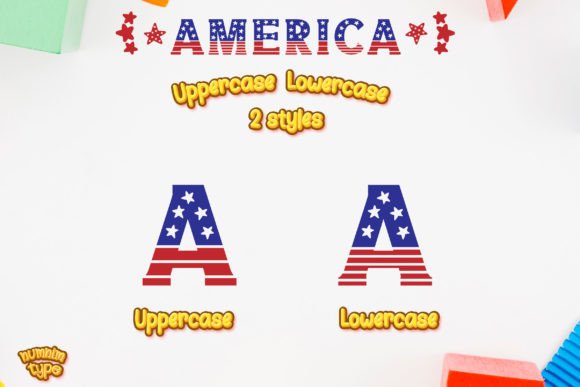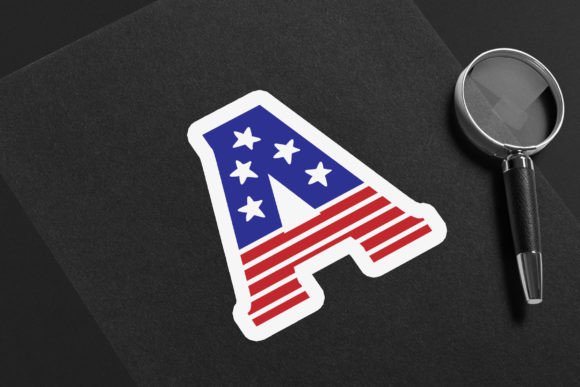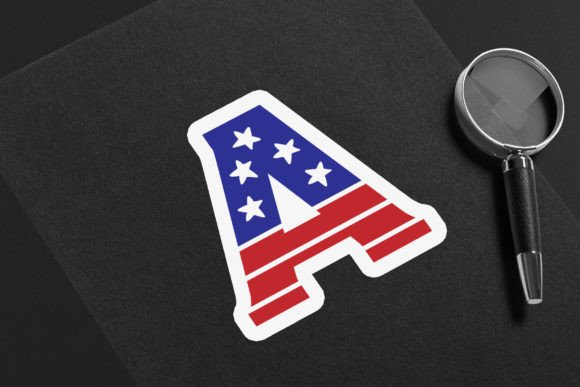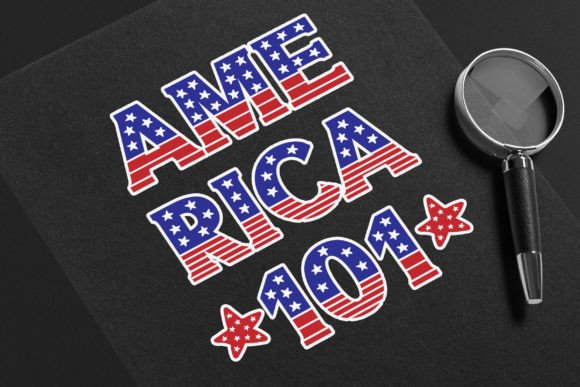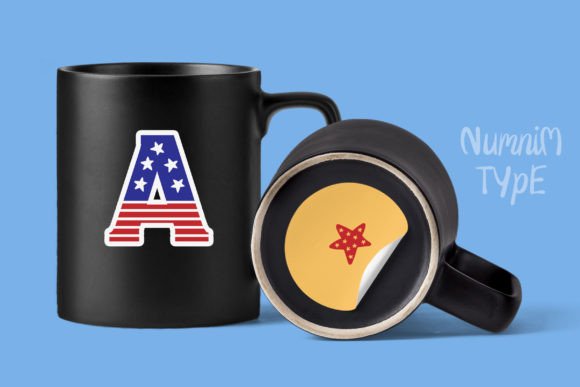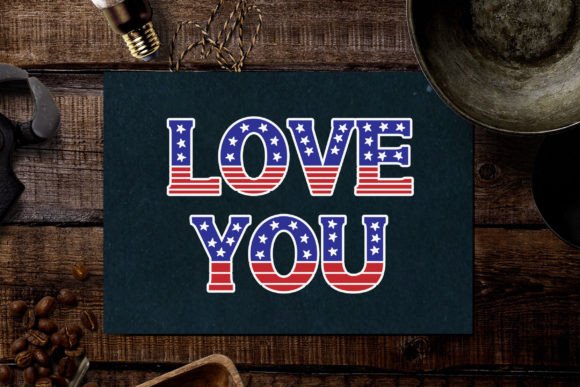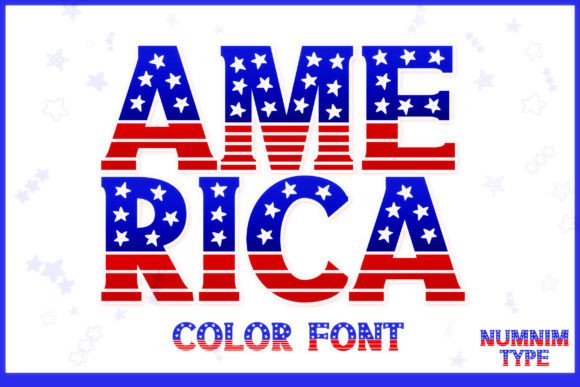
The Ultimate Guide to America Font: A Decorative Color Font for Creatives
I’ll never forget the time I was working on a project for a client’s 4th of July party invitations. I had a clear vision of what I wanted to create, but I was struggling to find the perfect font to match the festive and playful vibe. That’s when I stumbled upon the America Font, and it instantly became the star of the show! 🎉
America is a cool and uniquely crafted decorative color font that’s perfect for stickers, mugs, t-shirts, ornaments, independence day event cards, event invitations, and many more! Its fun and playful characters make it an excellent choice for creatives who want to add a touch of personality to their designs.
• ✅ Unique and playful character designs that add a touch of whimsy to any project
• ✅ Beautiful color output that eliminates the need for manual color filling
• 🤔 Some users may find the font’s playful style too bold or overpowering for certain projects
The Designer Inspiration Behind America Font
America Font was designed with the goal of creating a unique and playful font that captures the spirit of American celebrations and events. The designer wanted to create a font that’s fun, festive, and easy to use, while also offering a range of creative possibilities for designers and crafters.